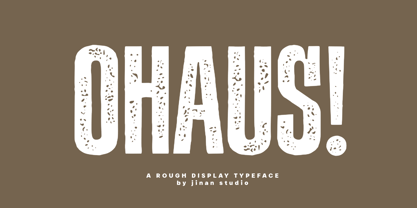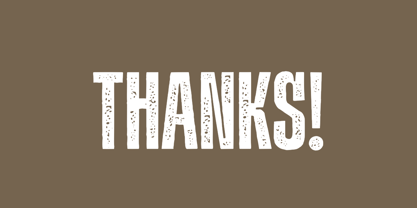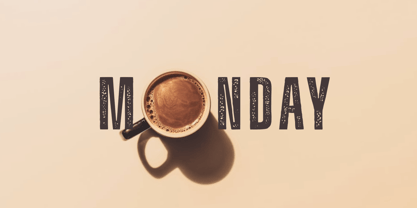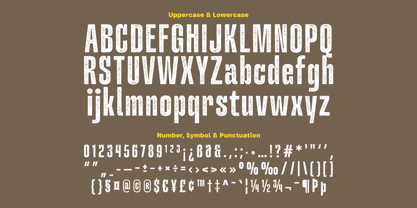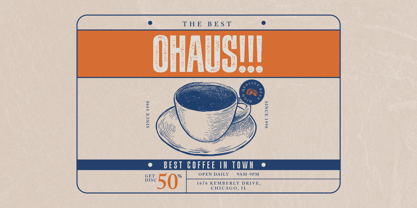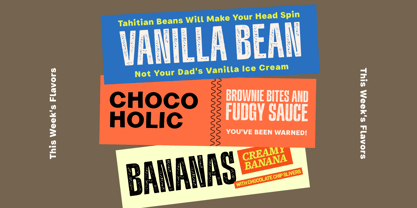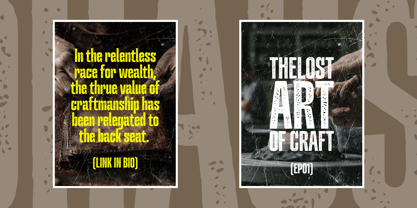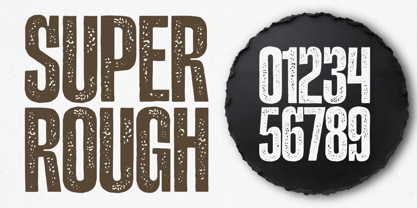
Ohaus
by Jinan Studio
The Ohaus Font Family was designed by Andi Syahdang, Ainun Jinan and published by Jinan Studio. Ohaus contains 1 styles.
Ohaus! is a bold and rugged display typeface that packs a punch with its rough, hand-crafted texture. Its strong, distressed letterforms bring an authentic vintage vibes. Perfect for posters, branding, packaging, and headlines that demand attention. Inspired by old print textures and bold signage, Ohaus! adds raw character and strength to any design. Whether you’re creating a retro look or something daringly modern, this typeface stands out with attitude and grit. Features A set of uppercase and lowercase glyphs Number, symbol, and punctuation Multilingual Support